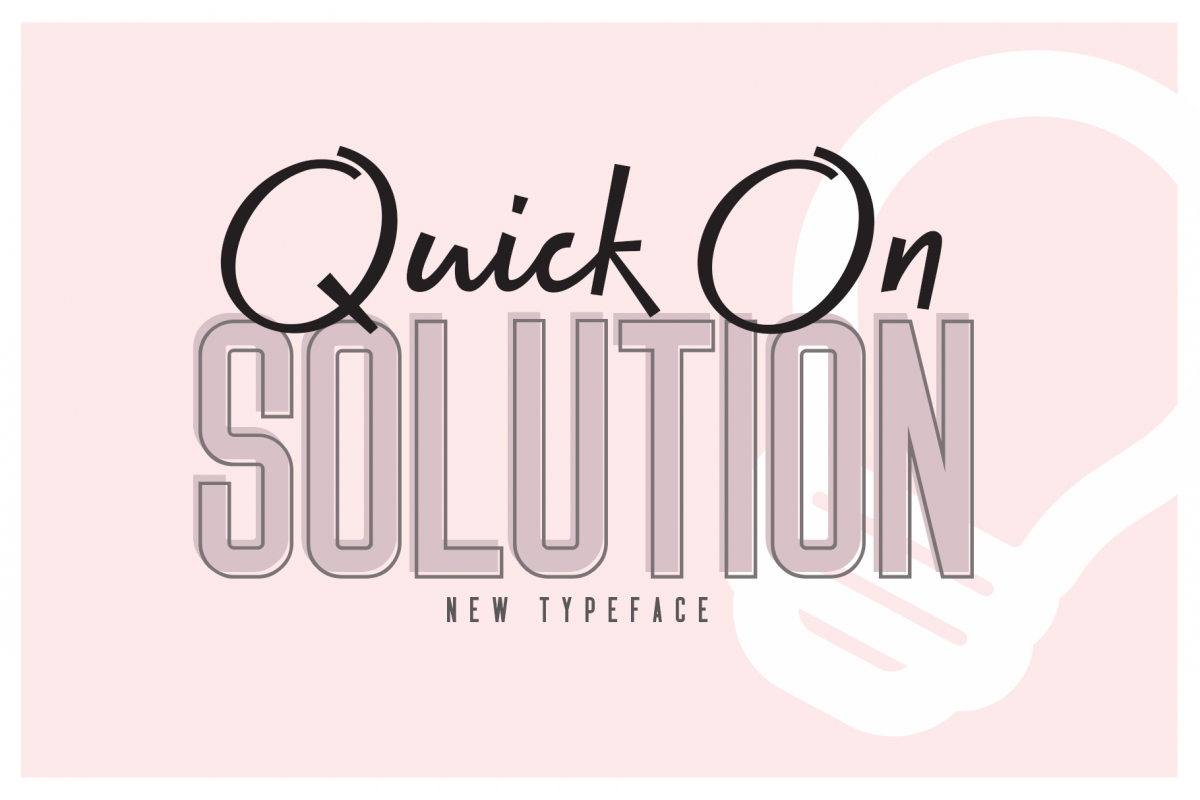
Quick On & Solution
Quick On & Solution are two different font types; Quick On is a script font with typical handmade, a work that is purely a result of handmade, has a natural characteristic. this is perfect for invitations, signatures, blogs, social media, business cards, product brands.; Solution is a normal sans font with its delicate and gentle characteristic. It is perfect for invitations, signatures, blogs, social media, business cards, product brands.
- Quick On has Stylistic standard, Stylistic Alternates and ligatures. and includes uppercase and lowercase letters, numbers and punctuation marks.
- Solution has Solid Style, includes uppercase and lowercase letters, numbers and punctuation.
- Solution Line has Outline Style , includes uppercase and lowercase letters, numbers and punctuation.